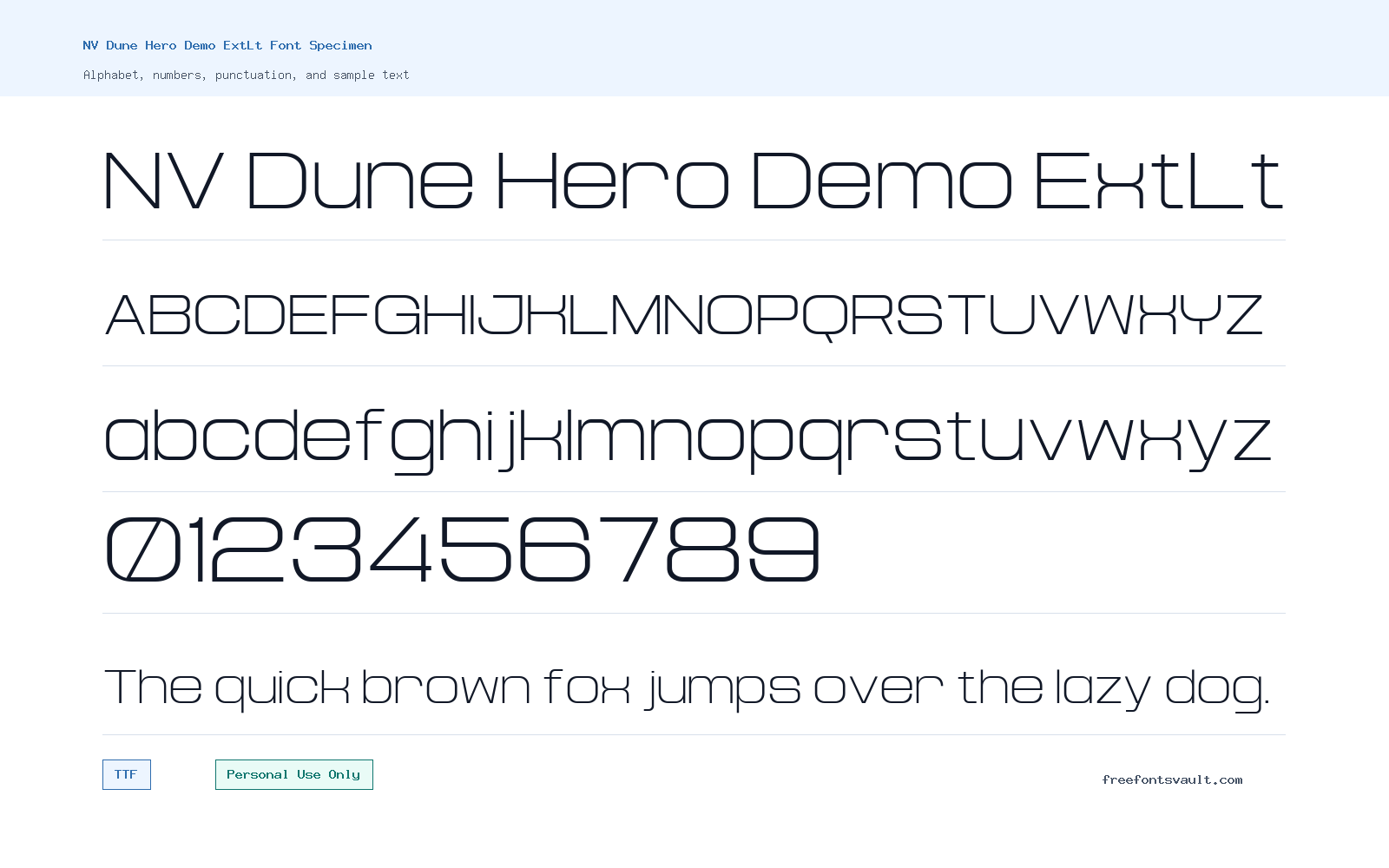
NV Dune Hero Demo ExtLt
NV Dune Hero Demo ExtLt font preview showing the family name
NV Dune Hero Demo ExtLt Font
NV Dune Hero Demo ExtLt font specimen showing alphabet, numbers, and sample text
NV Dune Hero Demo ExtLt font.
NV Dune Hero Demo ExtLt is a light-weight demo font from NovaraType with a clean sans serif direction and a Personal Use Only license. It is a good font to test when you need slim, spacious lettering for display text, early logo ideas, poster layouts, and visual mockups.
About NV Dune Hero Demo ExtLt
NV Dune Hero Demo ExtLt uses an ExtraLight style, so its main strength is restraint. Thin strokes can make words feel airy, modern, and controlled, especially when the text has enough room around it. This kind of weight is usually most effective in larger sizes where the letter shapes can breathe. Try it for short headings, nameplates, mood boards, packaging drafts, portfolio covers, social graphics, or clean editorial-style layouts. Because this is a demo font, it is best treated as a preview and testing option rather than a final commercial asset.
• ExtraLight 300 weight for slim, quiet display typography
• Sans serif demo style suited to clean titles and mockup work
• Normal upright style rather than an italic or decorative script
• Useful for short text where spacing, contrast, and scale can be controlled
• Works best when the design gives the letters enough open space
• Minimal logo concepts and brand-name studies
• Poster headlines with generous spacing
• Fashion, portfolio, and editorial-style title layouts
• Website hero mockups and landing-page headings
• Social media graphics with short, high-contrast text
• Packaging drafts, label concepts, and presentation boards
Use this font where the text can stay short and clear. ExtraLight fonts often need larger sizes, strong contrast, and careful spacing. For logo work, test the wordmark in black, white, and one brand color, then shrink it to small sizes to check whether the thin strokes still hold up. For posters and web mockups, pair it with a sturdier text font for body copy. A neutral sans serif, a readable serif, or a heavier weight from a compatible family can help balance the thin display style. Avoid using this font for long paragraphs, dense navigation labels, captions, or small mobile text, because the light stroke weight may reduce readability.
What type of font is NV Dune Hero Demo ExtLt?
It is listed as a sans serif demo font in an ExtraLight style, with a normal upright variant and 300 weight.
Can I use it for body text?
It is better for short display text than long reading. The ExtraLight weight may become hard to read in small sizes or long paragraphs.
What should I pair it with?
Pair it with a more readable text face for paragraphs and interface copy. A stronger sans serif or a simple serif can give the layout contrast while keeping the headline light.
Why should I test my own words in the preview?
Thin fonts can change character depending on the letters, spacing, and size. Testing your exact title or brand name helps you see whether the font stays clear.